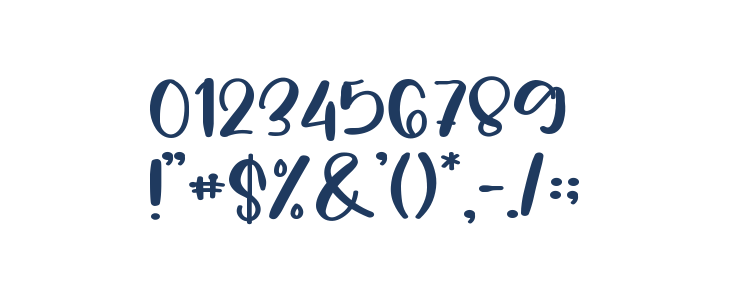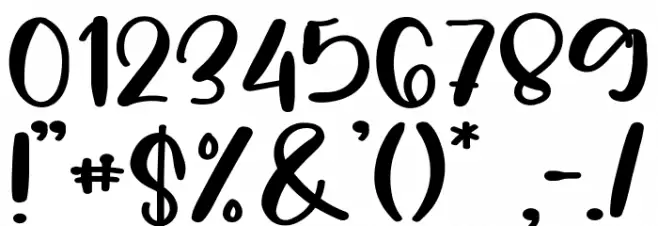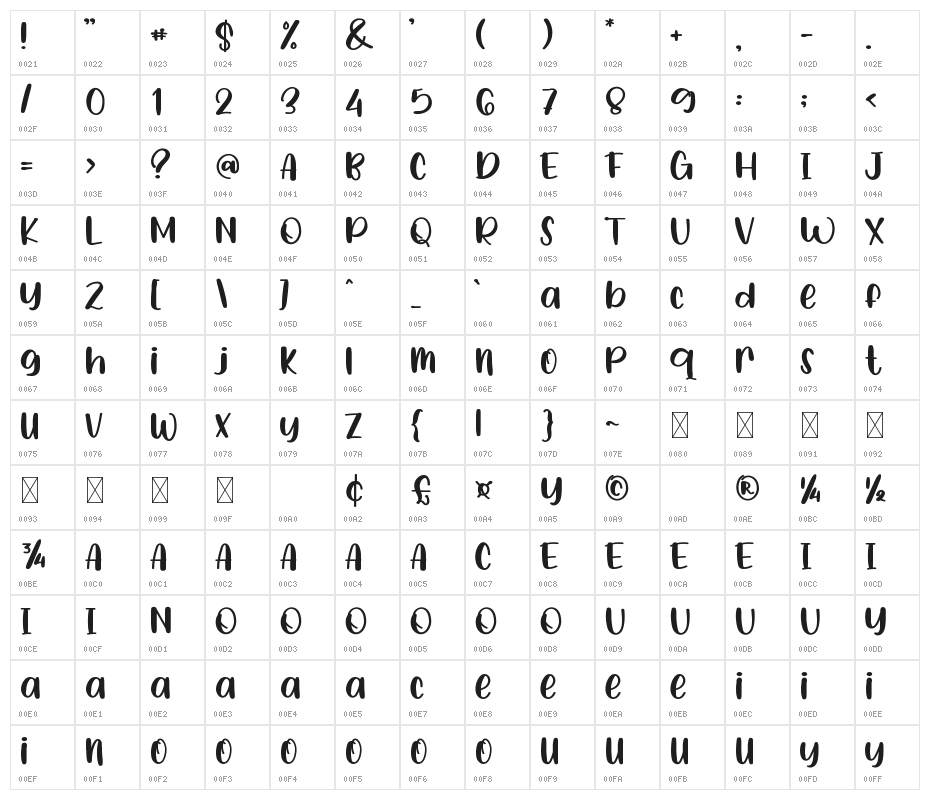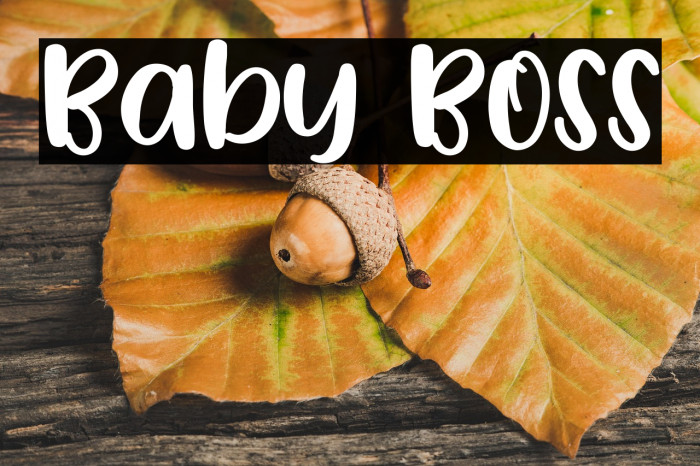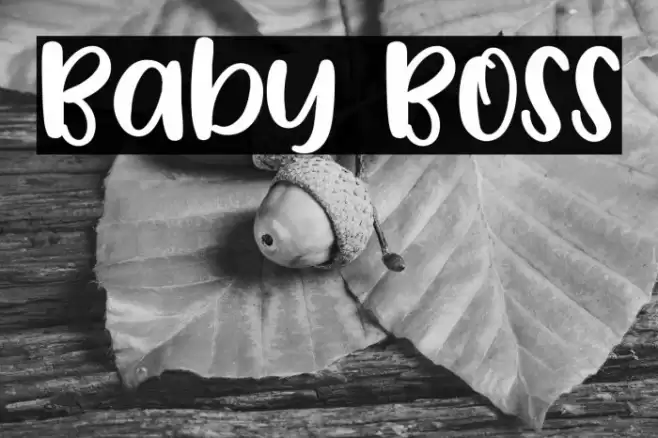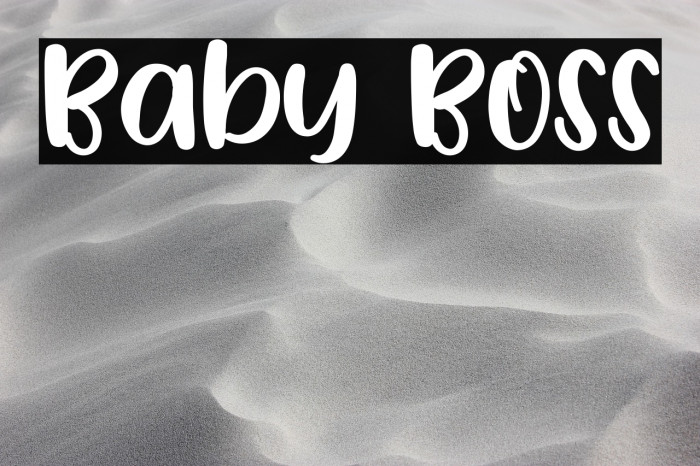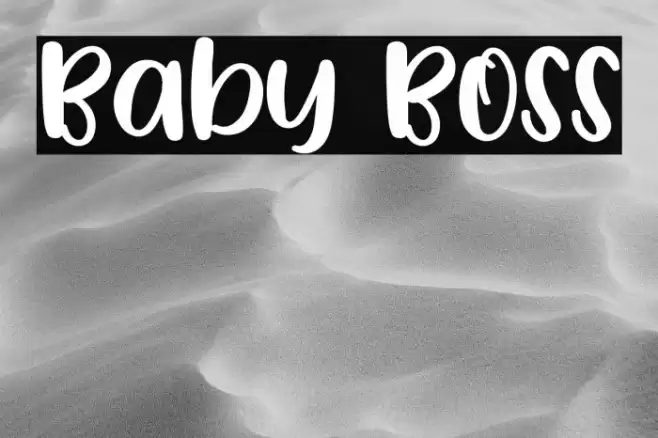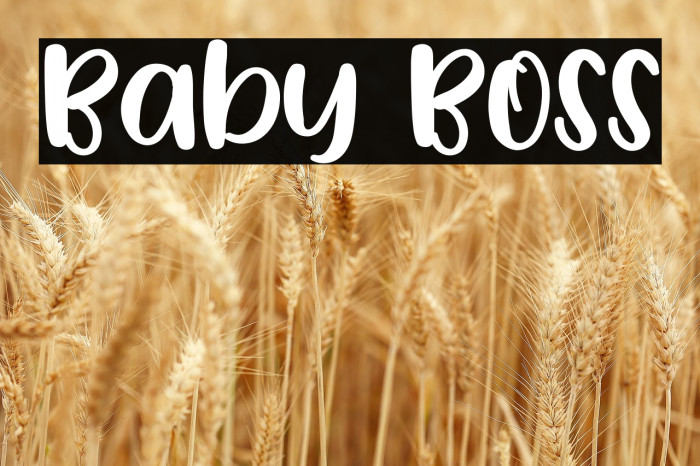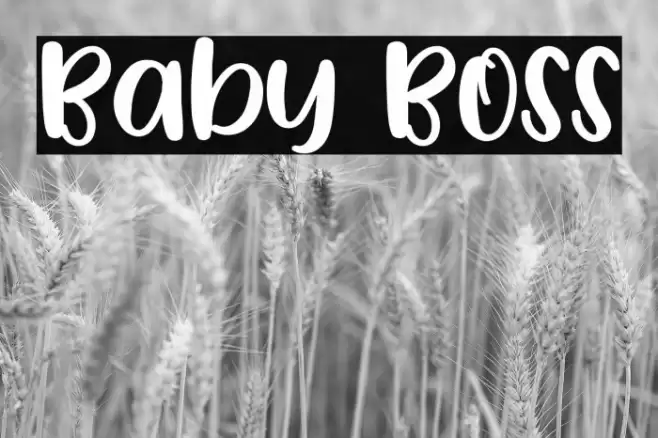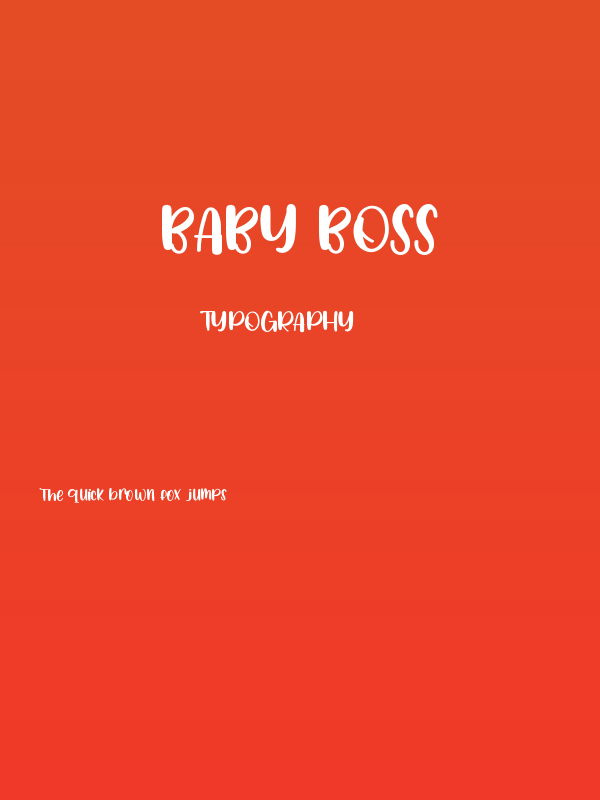
Baby Boss Font
Baby Boss Description
This playful and bold font features a handwritten style with smooth, flowing curves and a lively character. The uppercase letters are slightly taller with rounded edges, while the lowercase letters maintain a consistent, friendly appearance. The numbers are equally dynamic, with a whimsical touch that complements the overall aesthetic. Special characters are designed to match the font's energetic and informal style, making it suitable for creative and fun projects. The font's thick strokes and rounded forms give it a warm and approachable feel, perfect for capturing attention in a casual setting.
| Use Case | Headlines, Logos, Social media graphics |
| Proposed Projects | Ideal for children's books, playful branding, greeting cards, and social media graphics. |